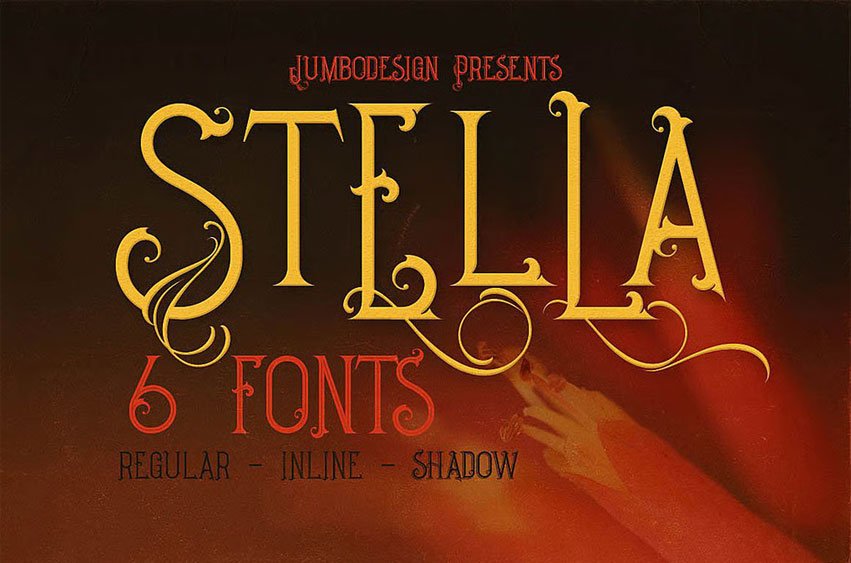
Stella Font Unique vintage & decorative style custom font with 6 styles: regular and grunge, inline and inline grunge, shadow and shadow grunge.
Every letter has a unique and beautiful touch, which will make your design come alive!